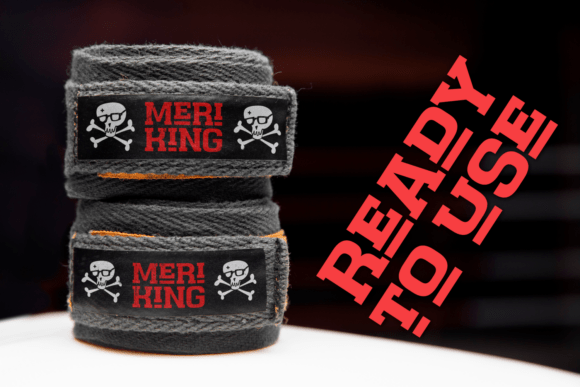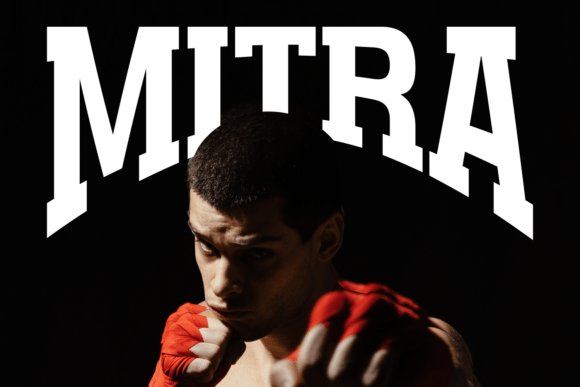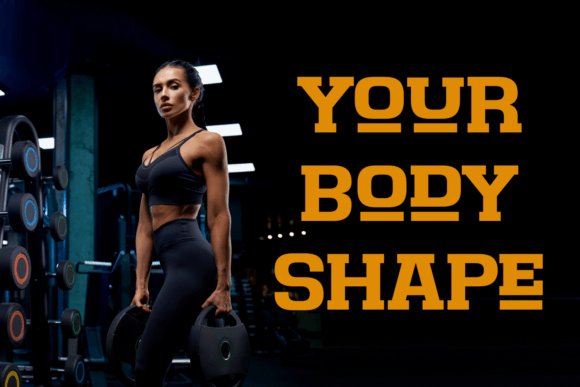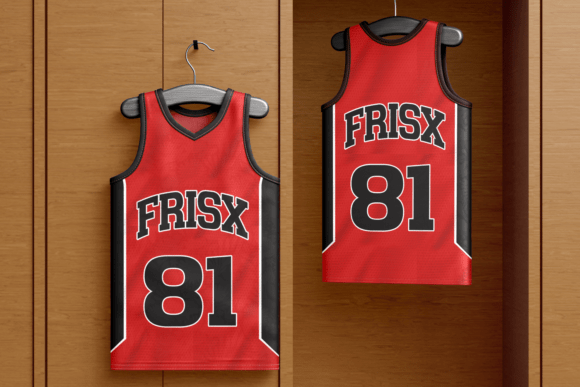
Introduction to Famous Planner Font Font
Fonts play a crucial role in design, and the Famous Planner Font font is a typeface that brings both character and versatility to any project. Whether you’re working on a branding project, a website, or a print design, the Famous Planner Font font offers a unique style that can elevate your work.
Introducing Famous Planner Slab Serif, a font designed for the modern era with distinctive accents – apt for all your apparel, authenticity, and the creation of iconic book covers.
Exuding a clean and fresh appeal, this font is ideal for various uses, like making your greetings cards stand out or making magazine headlines pop .
Key Features of Famous Planner Font Font
Why Choose Famous Planner Font Font?
The Famous Planner Font font is more than just a typeface – it’s a design tool that helps you communicate your message with style and clarity. Its unique character set and versatile design make it suitable for a wide range of applications, from elegant invitations to bold headlines.
With its carefully crafted letterforms and balanced proportions, the Famous Planner Font font ensures readability and visual appeal across all mediums.
What makes Famous Planner Font font special?
The Famous Planner Font font stands out with its unique design, exceptional readability, and versatility across various design applications.